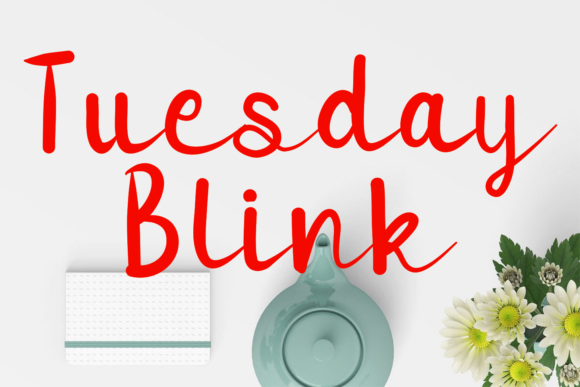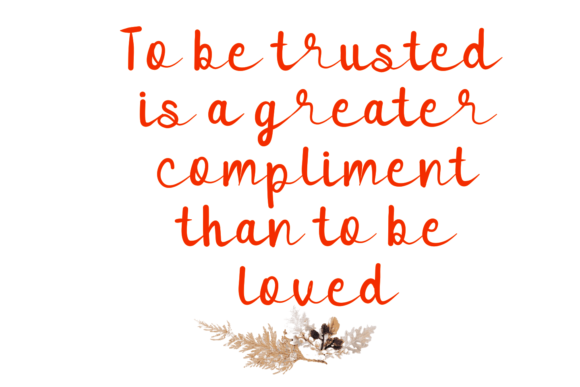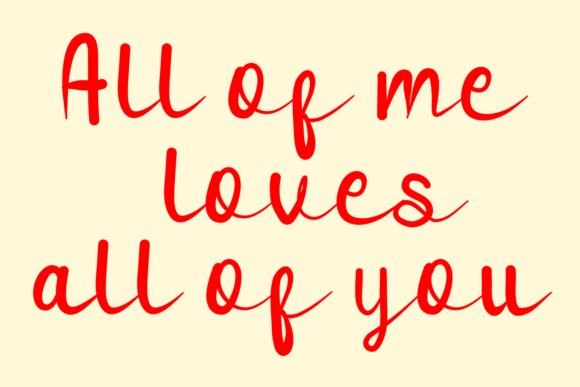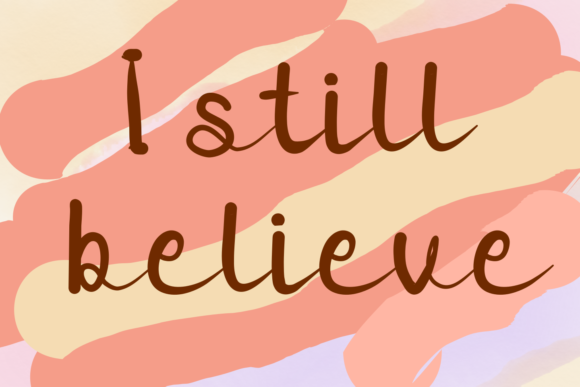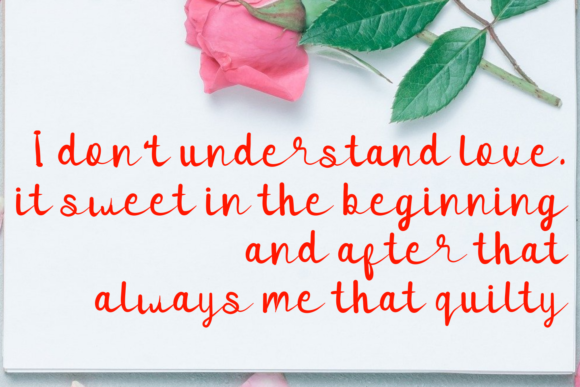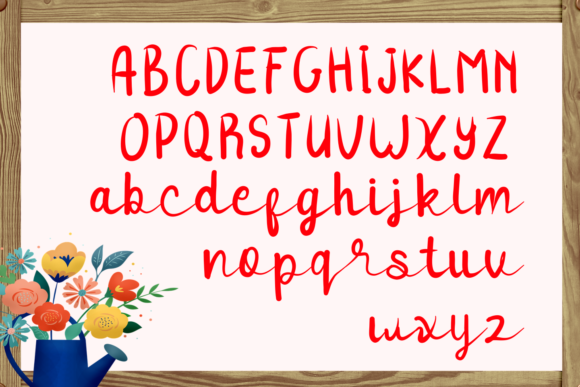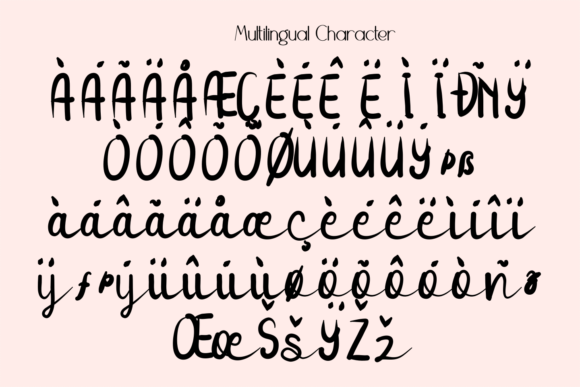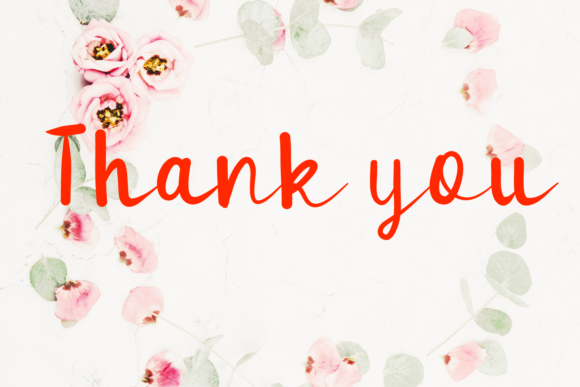
Tuesday Blink Font
About Tuesday Blink Font
Tuesday Blink is a beautiful script designed with an incredibly modern feel. Whether you’re looking for fonts for Instagram or calligraphy scripts for DIY projects, Tuesday Blink will turn any creative idea into a true piece of art!